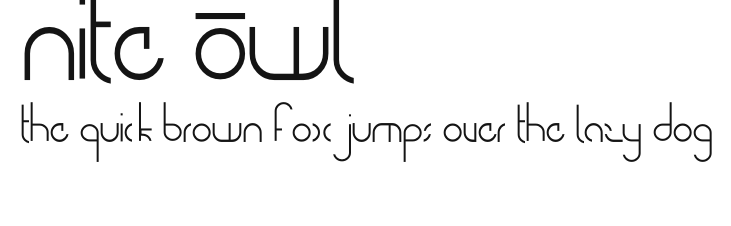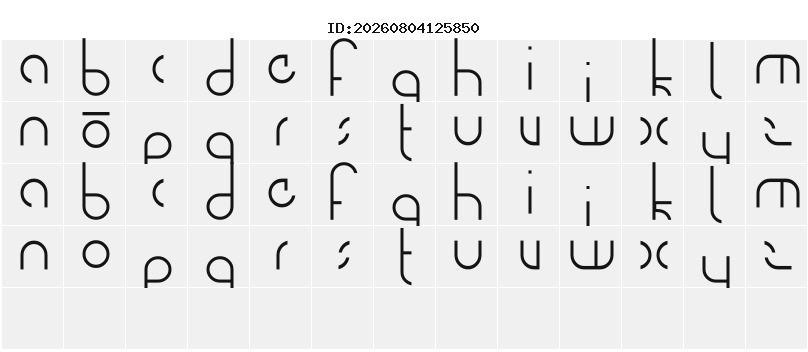
Nite Owl Preview
• Font Name: Nite Owl
• Full Font Name: NiteOwl-Regular
• Designer: =^_^=
• Manufacturer: Skyhaven
About Nite Owl.otf
Nite Owl.otf is a modern, elegant sans-serif font designed for ultimate readability and visual harmony. Perfect for branding, headlines, web design, and print materials.